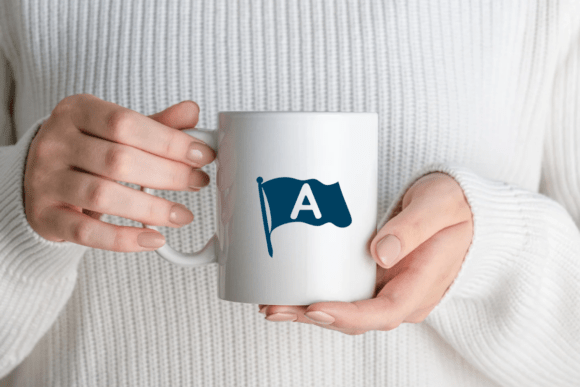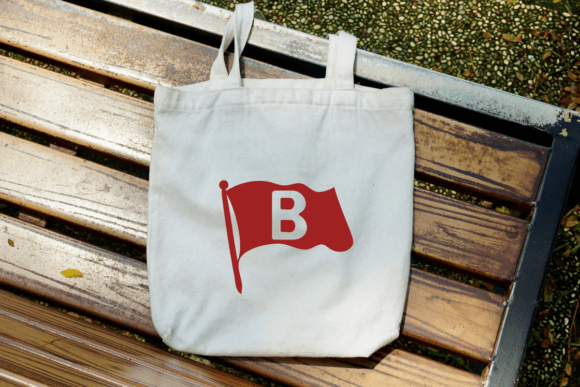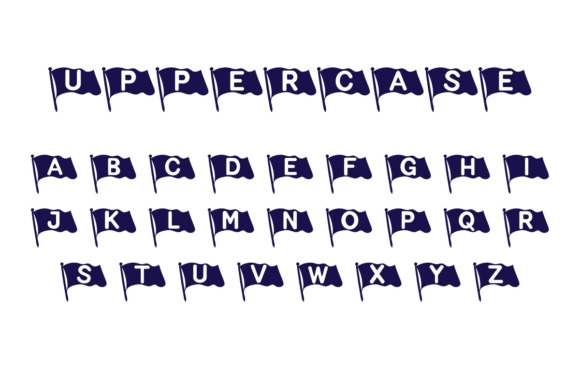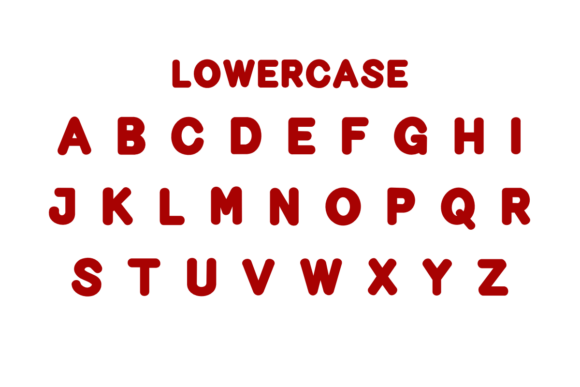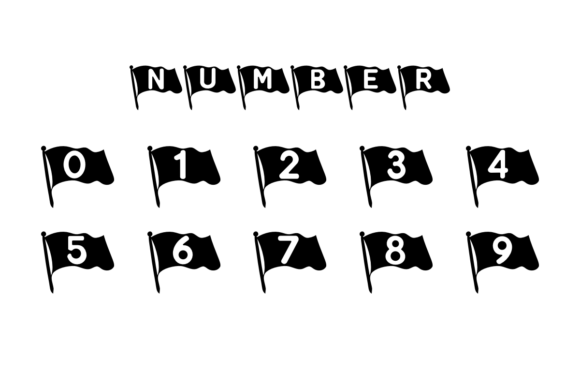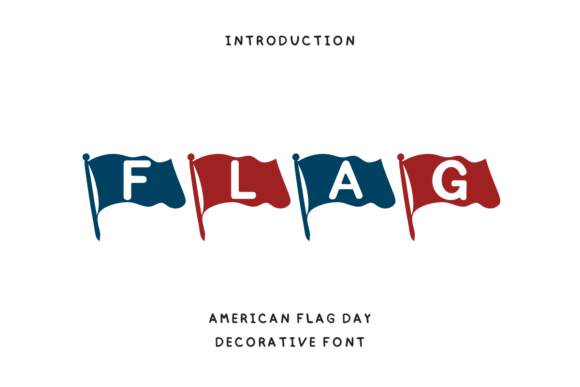
Introducing the American Flag Day Font: A Patriotic Design Essential
I’ll never forget the summer I was tasked with creating a festive Independence Day design for a client’s t-shirt. As I scrolled through font after font, nothing seemed quite right – until I stumbled upon the American Flag Day Font. It was love at first sight! ✨ The bold, decorative letters, crafted from flag shapes, instantly captured the essence of American patriotism. If you’re a designer, crafter, or creative hobbyist looking for a font that screams “USA,” you’re in the right place.
What Makes the American Flag Day Font So Special?
This stunning font is inspired by patriotic themes and national celebrations, making it perfect for USA-themed designs. Each letter is meticulously designed with flag shapes, creating a strong and eye-catching look that’s sure to turn heads. Whether you’re working on a project for Independence Day, Flag Day, Memorial Day, or any other patriotic event, this font adds a festive and meaningful touch.
Here’s what I love about the American Flag Day Font:
- ✅ Unique and Creative: The flag-shaped letters are unlike anything you’ve seen before, making your designs instantly recognizable.
- ✨ Festive and Patriotic: The font perfectly captures the spirit of American celebrations, adding a touch of patriotism to your projects.
- 💻 Versatile: From t-shirts and posters to banners and social media graphics, this font is perfect for a wide range of creative projects.
And, like any font, it’s not without its quirks:
- ⚠️ Limited Use Cases: While the font is amazing for patriotic events, it might not be the best choice for more formal or corporate designs.
- 🤔 Glyph Overload: With so many flag-shaped letters, it can be overwhelming to navigate the glyphs panel – but trust me, it’s worth the exploration!
- Experiment with the font’s OpenType features, such as glyphs and stylistic alternates, to add more flair to your design.
The Story Behind the American Flag Day Font
The American Flag Day Font was created by a talented designer who wanted to capture the essence of American patriotism. Inspired by the country’s national celebrations and flag, the designer crafted a unique and festive font that’s perfect for creative projects.